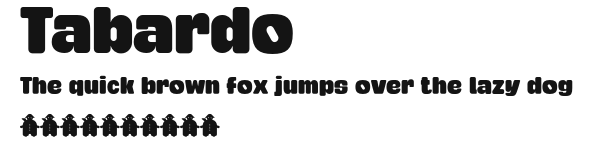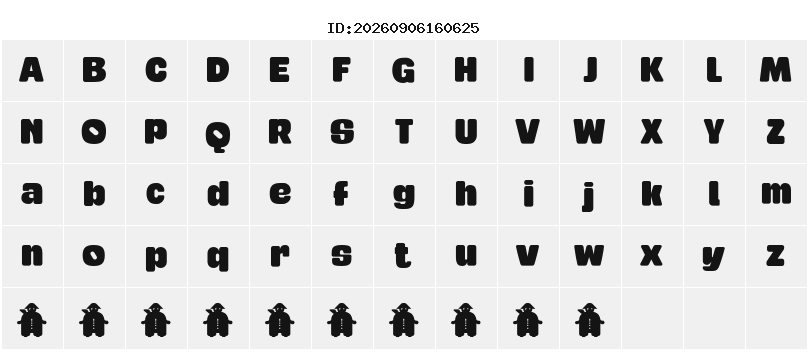
• Font Name: Tabardo
• Designer: Fernando Haro
• Description: Tabardo is a very thick, round display typeface with square proportions. Perfect for titles in editorial design and advertising.
About Tabardo.otf
Tabardo.otf is a modern, elegant sans-serif font designed for ultimate readability and visual harmony. Perfect for branding, headlines, web design, and print materials.